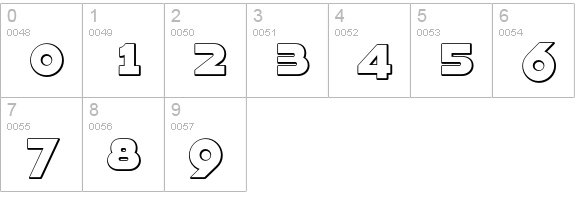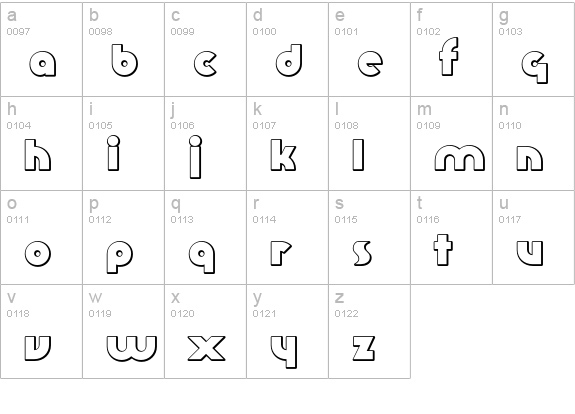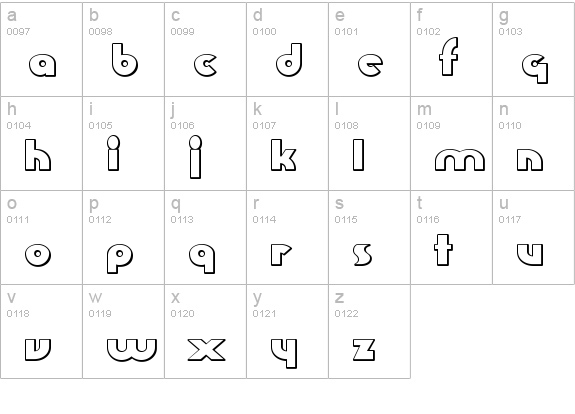
TFRoux-ShadedOne Font Details
Introducing TFRoux-ShadedOne, a visually striking and captivating font that effortlessly combines vintage elegance with a modern twist. This unique typeface is sure to make a lasting impression on any design project, whether it be a logo, packaging, or display headline. TFRoux-ShadedOne is a perfect blend of sophistication and creativity, featuring bold and intricate strokes that add depth and dimension to each character. Its distinct roux shading creates a sense of depth, giving your text a three-dimensional appearance that is both eye-catching and memorable. This font is not only aesthetically pleasing but also incredibly versatile. Its bold and attention-grabbing nature makes it ideal for headlines, titles, and any design element that demands to be noticed. At the same time, its refined details and classic charm make it suitable for more elegant and sophisticated projects, such as invitations, branding, and book covers. What makes TFRoux-ShadedOne even more impressive is that it is freely available to download at FontsMarket.com. Yes, you heard it right – this stunning font can be yours without any cost! Now you can add a touch of elegance and uniqueness to your designs without breaking the bank. So why wait? Download TFRoux-ShadedOne today and discover the endless possibilities it offers for your design ventures. Whether you're a professional designer or an enthusiastic hobbyist, this font will undoubtedly elevate your creations to new heights. Don't miss out on this opportunity to enhance your design repertoire with a free font that exudes style and sophistication.